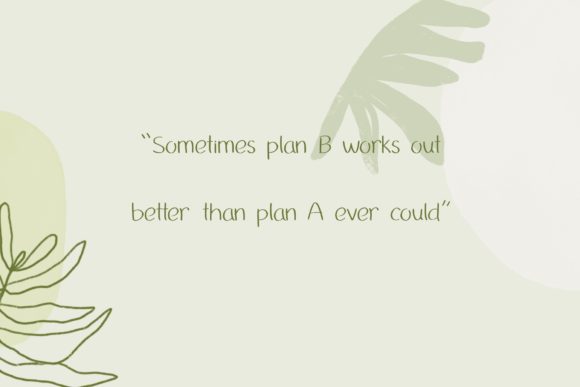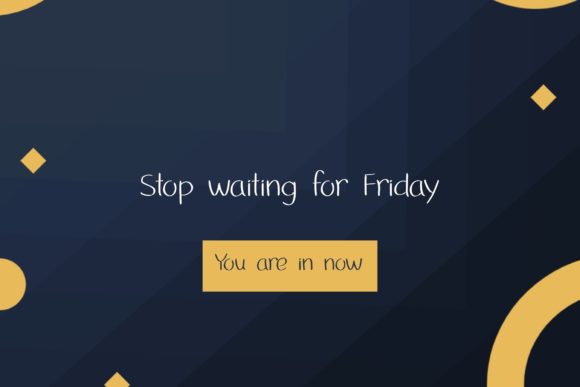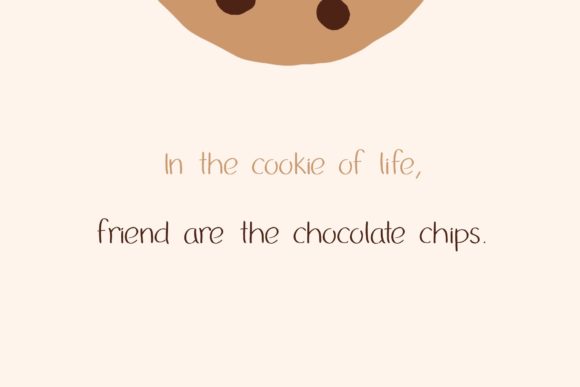
Gabrialla Font
About Gabrialla Font
Gabrialla is a clean and neat handwritten font. Whimsical and a bit quirky, this font will brighten up each of your designs. Add it confidently to your projects, and you will love the results.